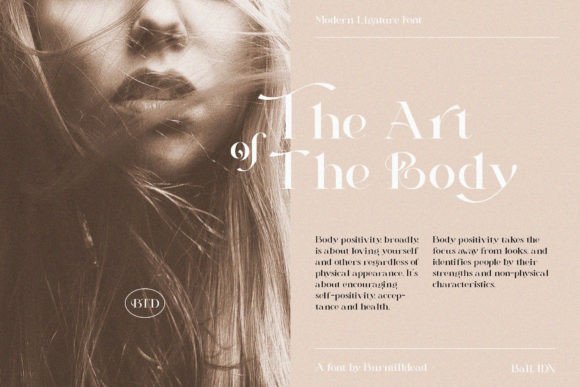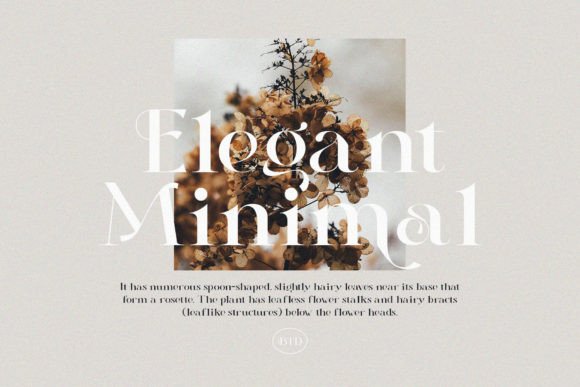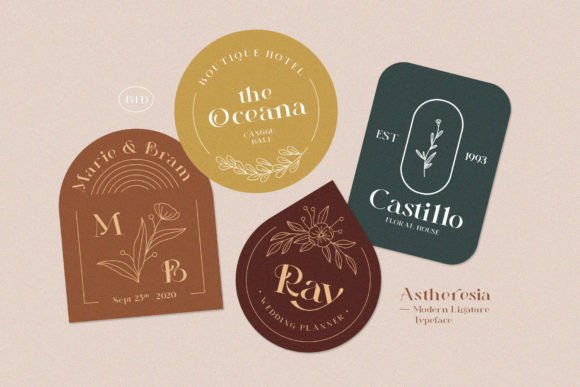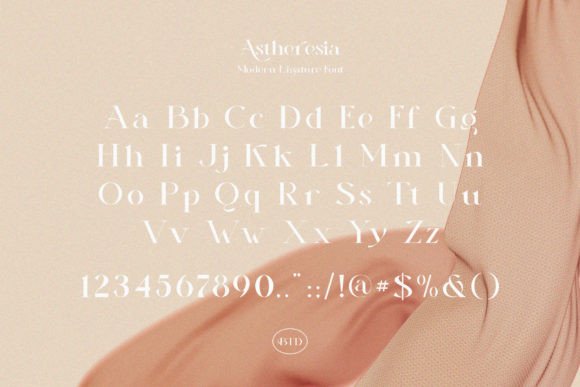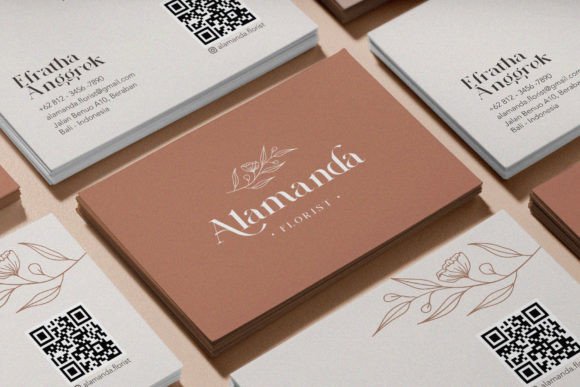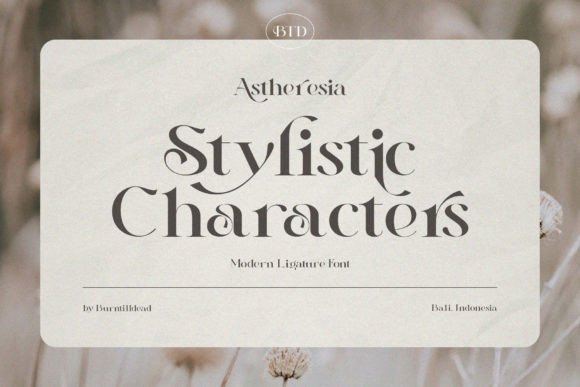
Astheresia Font: Elevate Your Designs with Elegance and Sophistication
In the world of typography, fonts play a crucial role in conveying the tone and aesthetic of a design. For those seeking to create luxurious, elegant, and feminine projects, the Astheresia font is an excellent choice. This sophisticated, charming serif font is specifically designed to add a fashionable touch to modern, chic designs. In this article, we’ll explore the features and benefits of Astheresia, making it a must-have for designers and crafters.
Unveiling Astheresia: A Serif Font with a Luxurious Twist
Astheresia is a carefully crafted serif font that exudes elegance and refinement. Its classic design is infused with a modern twist, making it perfect for a wide range of applications, from high-end branding and advertising to fashion editorials and packaging design. The font’s sophisticated charm is sure to captivate audiences and leave a lasting impression.
Key Features of Astheresia Font
- Sophisticated and Charming Design: Astheresia boasts a unique blend of classic and modern elements, making it an ideal choice for luxury and elegant projects.
- Fashionable Touch: The font’s fashionable design ensures that your projects stand out from the crowd and make a statement.
- PUA Encoded: Astheresia is PUA (Private Use Area) encoded, allowing easy access to all glyphs and ligatures. This feature makes it simple to use and customize the font to suit your design needs.
- Perfect for Modern and Chic Designs: Whether you’re working on a fashion brand, editorial, or packaging design, Astheresia is the perfect choice for creating modern, chic designs.
Why Choose Astheresia for Your Projects?
With Astheresia, you can elevate your designs to new heights. Here are just a few reasons why designers and crafters love this font:
- Versatility: Astheresia is suitable for a wide range of projects, from luxury branding and advertising to fashion editorials and packaging design.
- Elegance and Sophistication: The font’s classic design ensures that your projects exude elegance and refinement, making it perfect for high-end applications.
- Easy to Use: With PUA encoding, accessing glyphs and ligatures is a breeze, making it simple to customize the font to suit your design needs.
- Fashion-Forward: Astheresia’s fashionable design ensures that your projects are always on-trend and visually appealing.
Tips for Using Astheresia in Your Designs
To get the most out of Astheresia, here are a few tips to keep in mind:
- Pair with Neutral Colors: Astheresia looks stunning when paired with neutral colors like black, white, and pastels.
- Experiment with Ligatures: Take advantage of Astheresia’s PUA encoding to experiment with different ligatures and glyphs.
- Use for Headings and Titles: Astheresia is perfect for headings and titles, adding a touch of elegance and sophistication to your designs.
In conclusion, Astheresia is a sophisticated, charming serif font that’s perfect for luxury, elegant, and feminine projects. With its fashionable design, PUA encoding, and versatility, it’s a must-have for designers and crafters. Whether you’re working on a high-end brand, editorial, or packaging design, Astheresia is sure to elevate your designs to new heights.